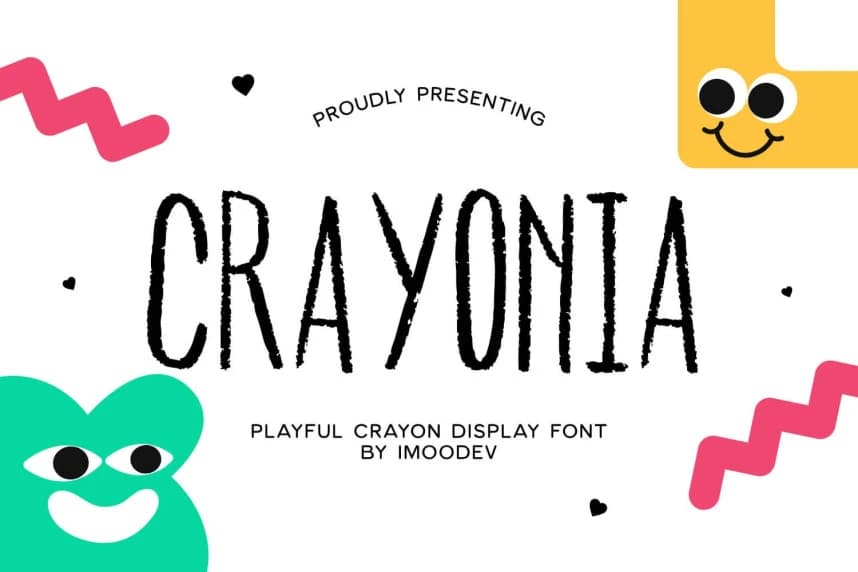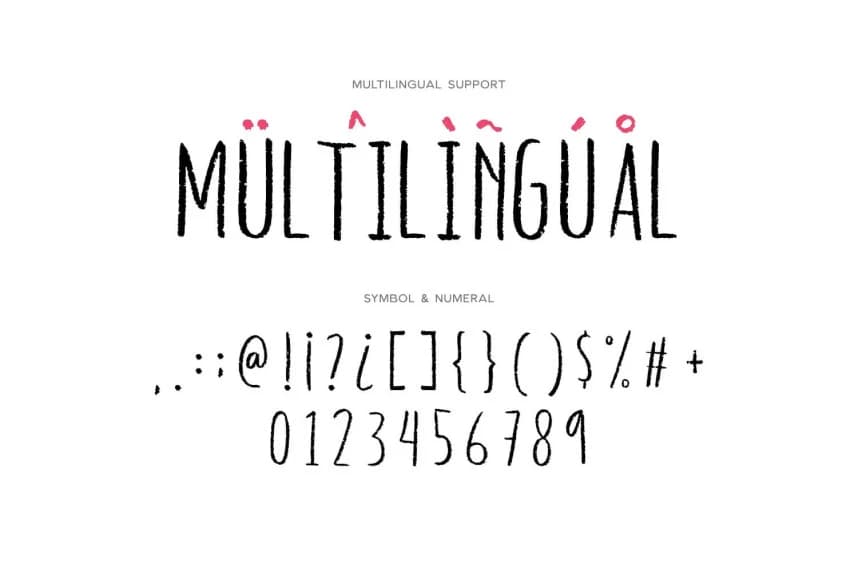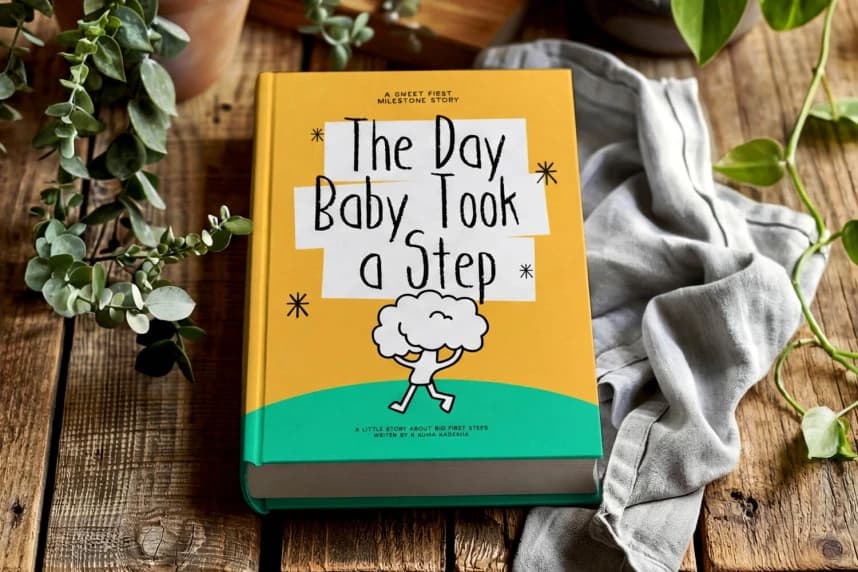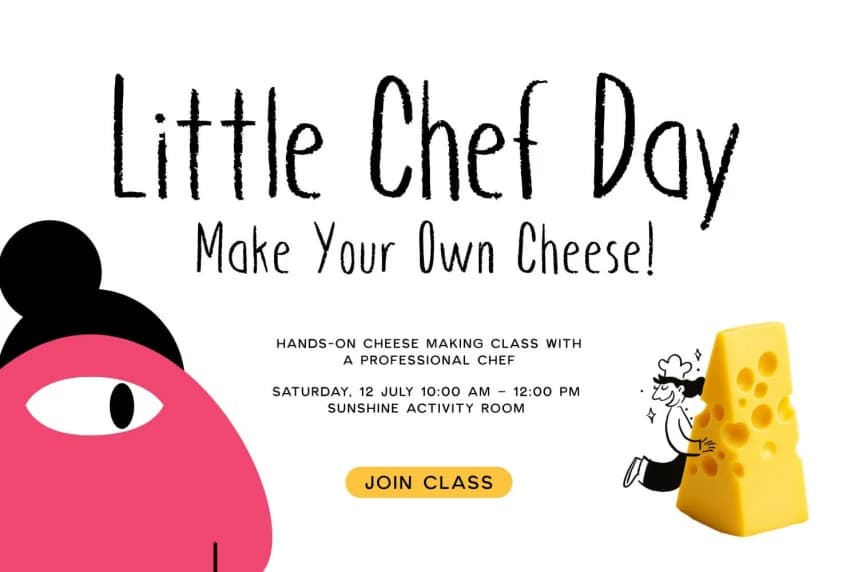
Crayonia Playful Font
Crayonia Playful Font is a charmingly hand drawn display font designed to bring the nostalgic, textured feel of wax crayons to your digital canvas. Featuring tall, condensed letterforms with authentic waxy edges and subtle pressure variations